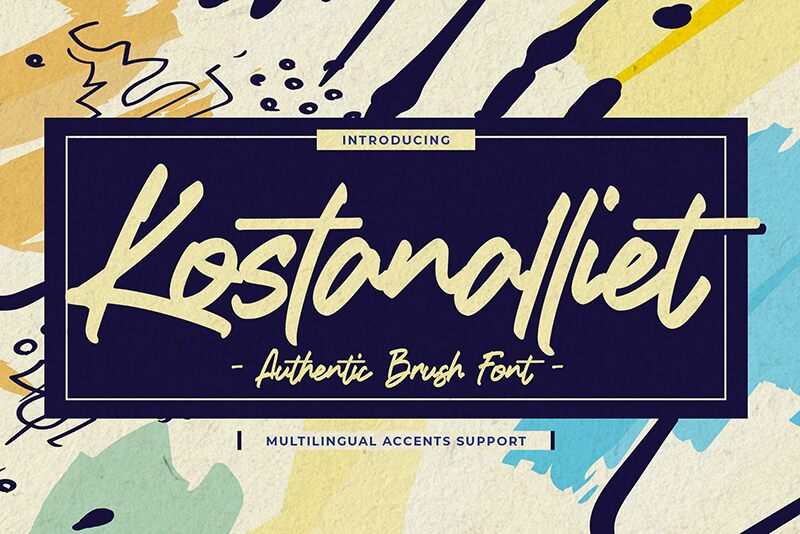
Kostanalliet
Kostanalliet emerges as a captivating handwritten font, masterfully designed by Gassstype to bring a semi-light yet profoundly dynamic character to your creative endeavors. This authentic brush font boasts a modern style, infused with dramatic movement crafted in a casual and swift stroke. Ideal for an array of design projects that demand a touch of modernity, authenticity, and fun, Kostanalliet excels in making words come alive.
Whether gracing the labels of artisanal goods or starring in bold posters, this font is versatile enough for branding exercises and personal projects alike. From packaging that pops off the shelves to greeting cards that warm hearts, Kostanalliet's script exudes an elegance that enhances every message with its natural look. Embrace the charm of Kostanalliet for your next project-where its unique flair can make your designs stand out effortlessly.